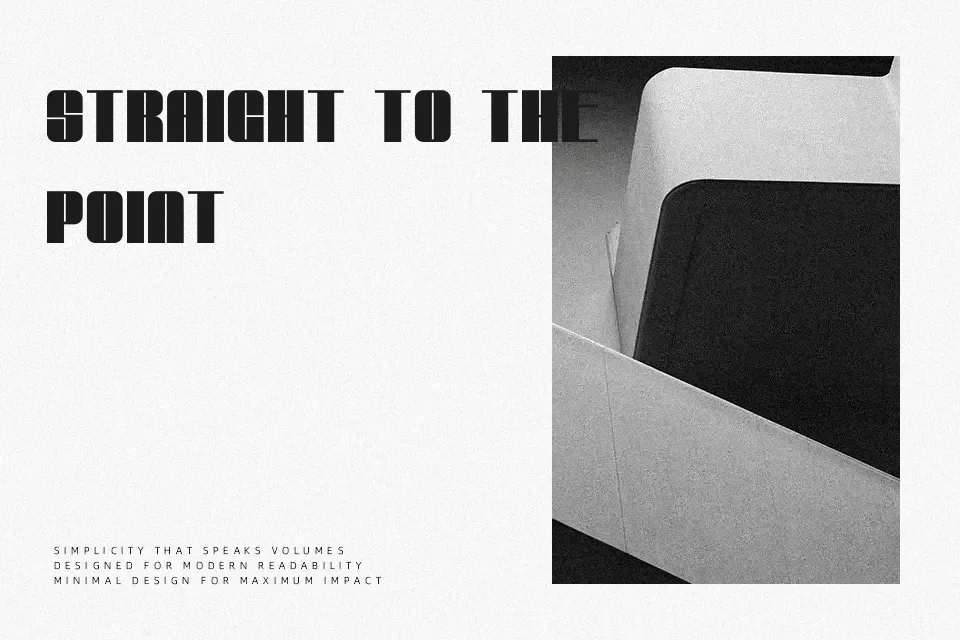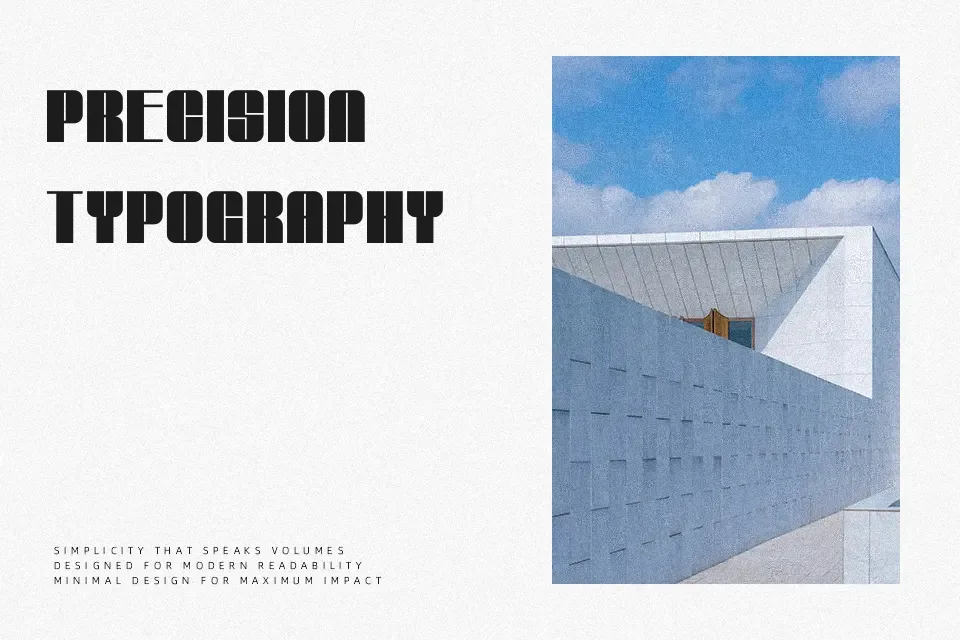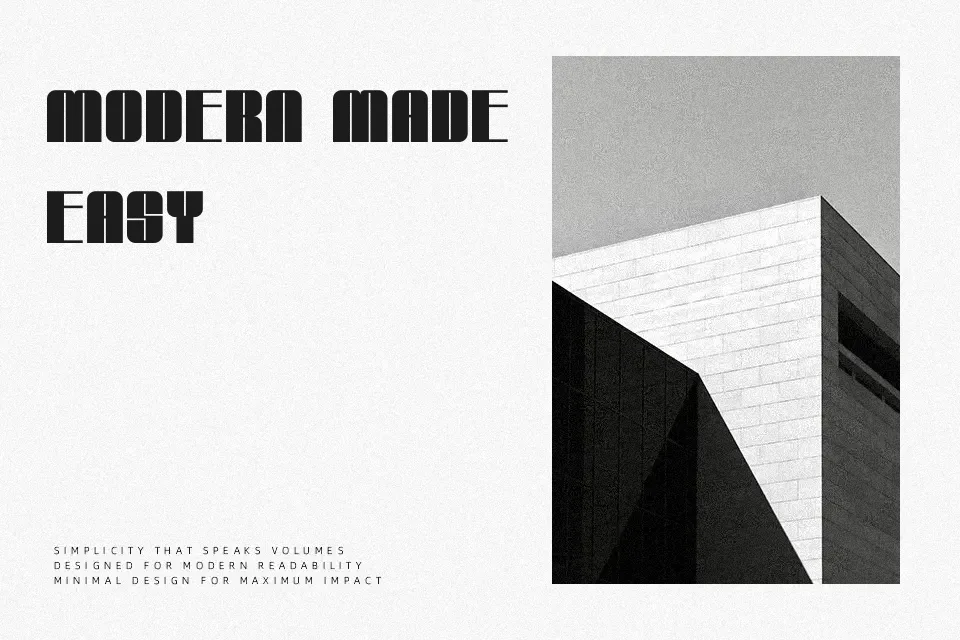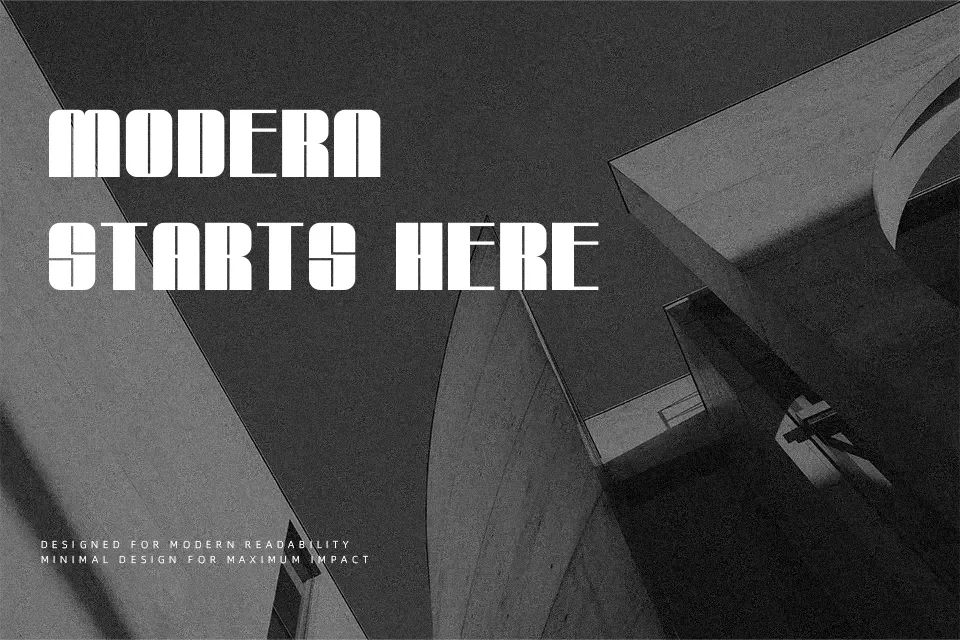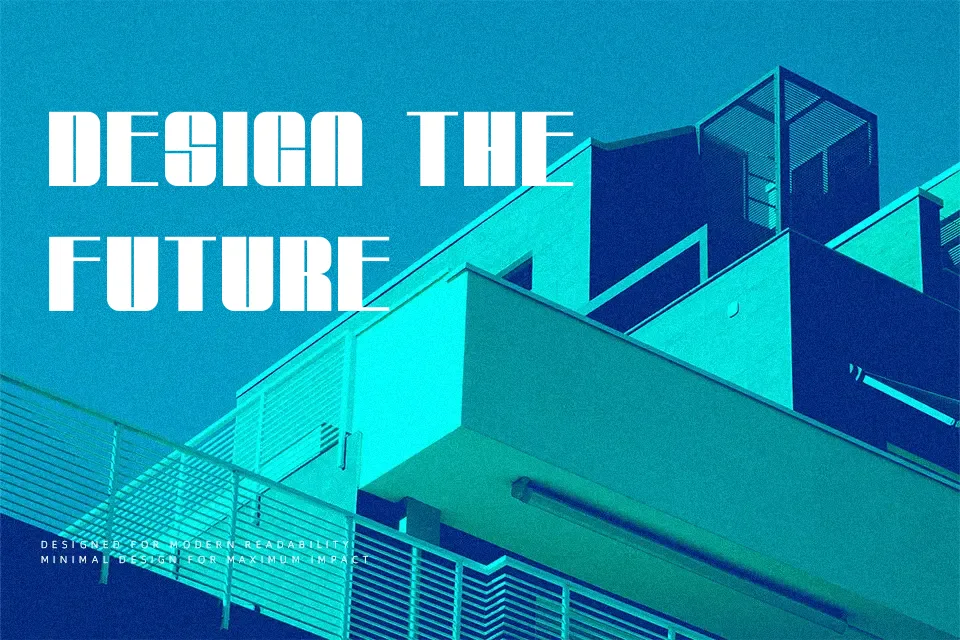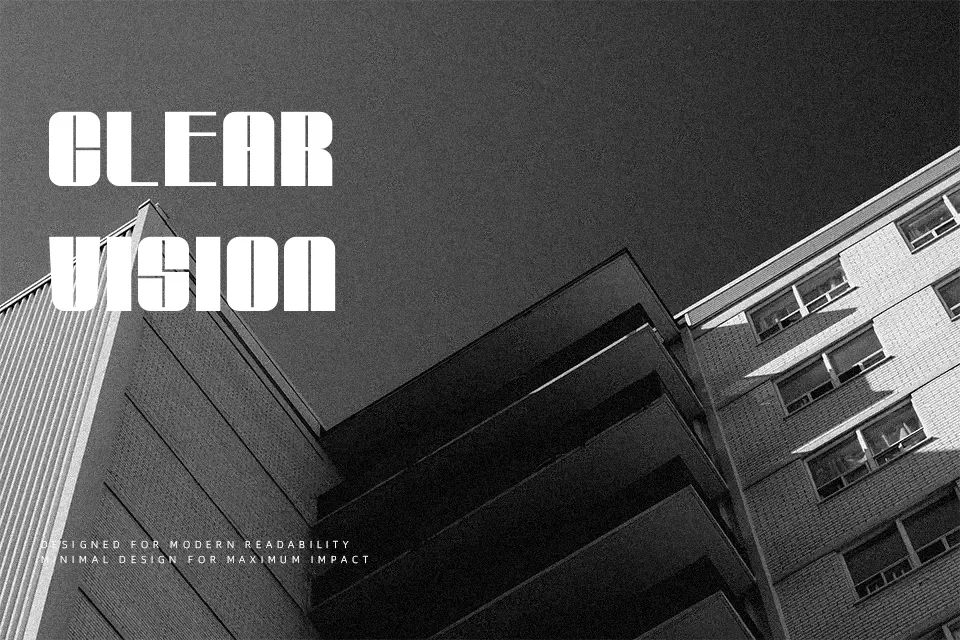
Sportune Font
Designed by RT Studio
Sportune Font delivers an aggressive visual rhythm defined by thick, uniform strokes, sharp chamfered corners, and extended horizontal proportions. The wide stance and moderate letter spacing ensure that each character remains distinct in fast-paced visual contexts like motorsport graphics, gym merchandise, and athletic broadcast titles. Across uppercase glyphs, the squared terminals and clean diagonal junctions create a stable yet forward-moving energy. The bold weight ensures high visibility from a distance in poster layouts, though the heavy structure reduces legibility when scaled down to continuous paragraph text. For high-impact titles, the typeface offers an assertive and cohesive graphic voice.
Best For: esports team jerseys,gym apparel graphics,athletic event posters,motorsport video titles
Not Ideal For: continuous body copy,mobile app body text,dense legal documentation,small caption labels
Perfect for branding, gaming, and headline, with a bold and display style.